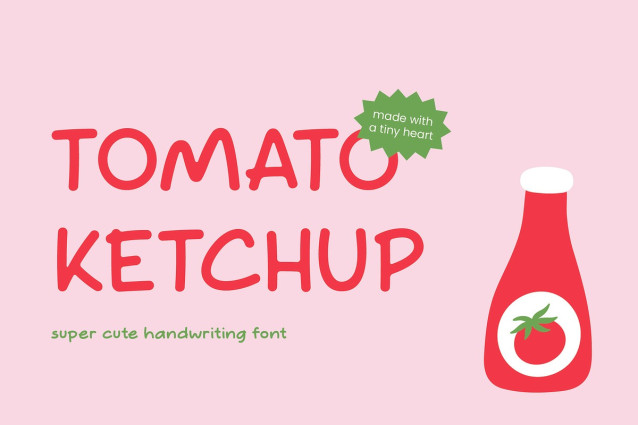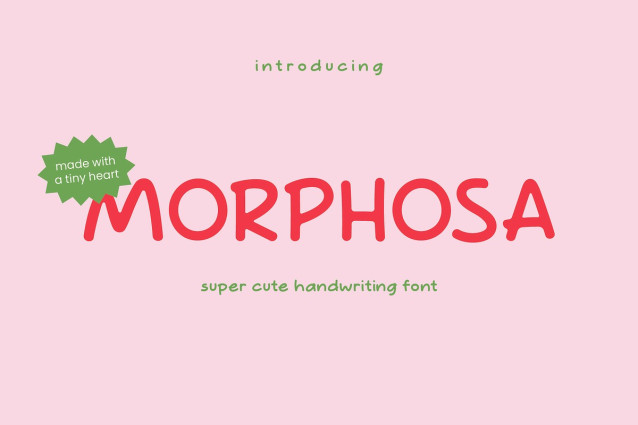
Morphosa Font
Morphosa Font is a playful, handmade font full of charm and energy. Its letters look fun and friendly, just like a child’s drawing. Therefore, this font works great for anything made for kids. You can use Morphosa for taking notes, birthday cards, storybooks, toys, posters, and more. For example, it makes every design feel cheerful and exciting.
The font includes uppercase and lowercase letters. In addition, it comes with numbers and basic symbols. As a result, you get everything you need to create cute and clear layouts.
Each letter looks hand-drawn and full of life. Moreover, Morphosa adds a warm and creative feel to your work. It helps your message sound fun, kind, and full of joy.